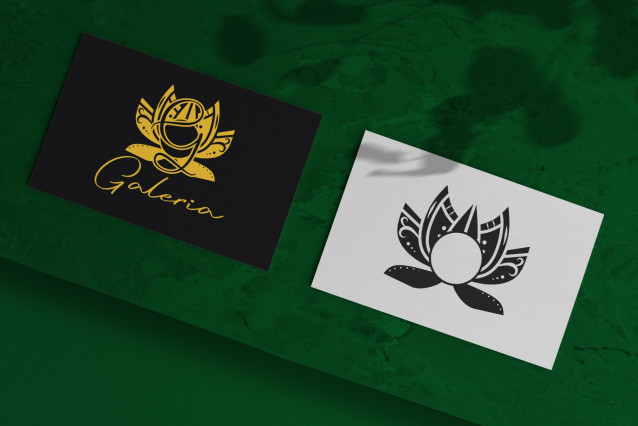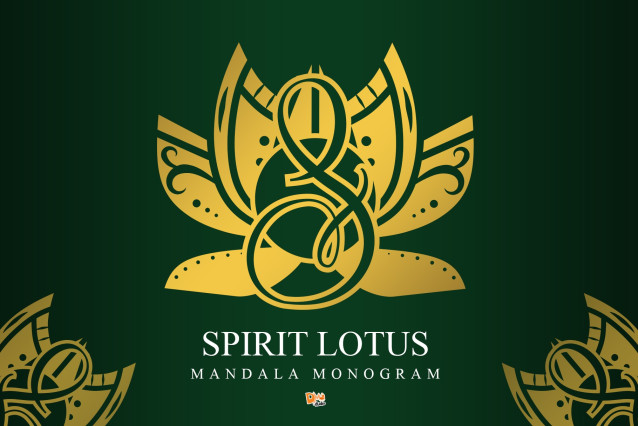
Spirit Lotus Mandala Monogram Font
Spirit Lotus Mandala Monogram is a soulful and decorative monogram font that blends spiritual symbolism with intricate lotus mandala designs. Each character in this typeface reflects the ethereal essence of spirit and transformation, making it an ideal choice for meaningful branding, boho wedding stationery, affirmation prints, meditation journals, and artistic packaging.